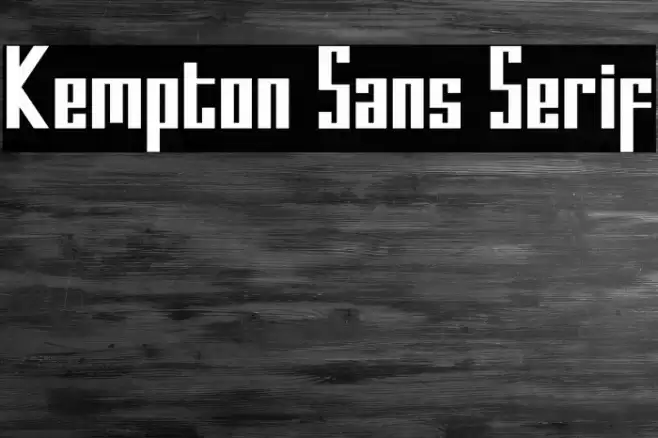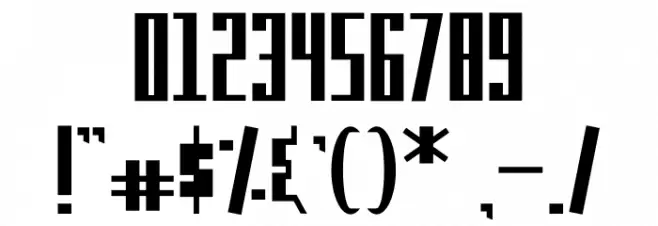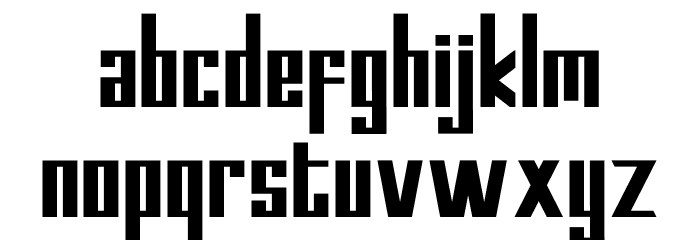
Kempton Sans Serif Font
Kempton Sans Serif Description
This font exhibits a bold and striking appearance, characterized by its tall, narrow letterforms and sharp, angular edges. The uppercase letters are particularly elongated, giving a sense of height and elegance, while the lowercase letters maintain a consistent style that complements the uppercase. The numerals are equally bold, ensuring readability and impact. Special characters are designed with the same angular precision, adding to the overall cohesive look. This font's geometric structure and clean lines make it suitable for modern and dynamic design projects.
A bold, angular font with tall, narrow letterforms and sharp edges from Uncategorized fonts.
- Proposed Projects: Ideal for branding, posters, headlines, and any design requiring a modern, impactful typeface.